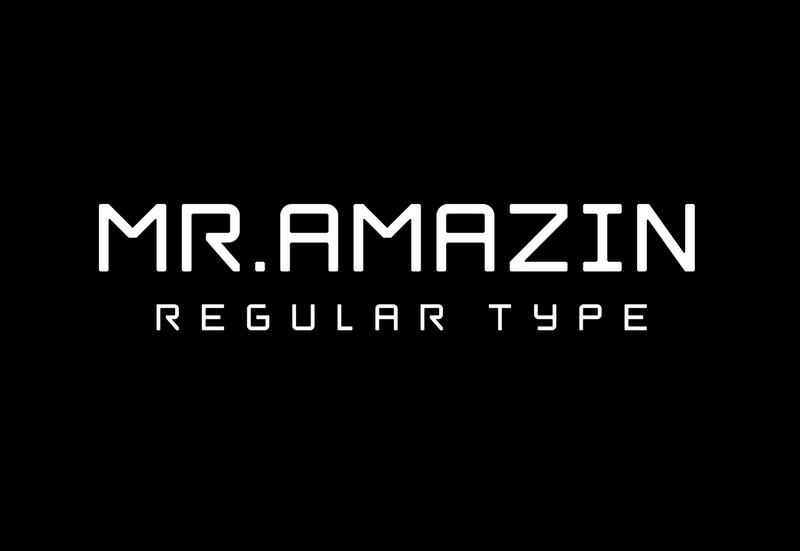
Mr.Amazin Display Font
Say Hello Guy’s . Thank you for looking Mr.Amazin Free Font. This is a condensed display typeface which is based on vintage branding and painted signage. It’s strong, confident and sophisticated; giving it flexibility for a broad range of uses. It includes accents & multilingual characters.
Mr.Amazin Regular Type – is a Geometric Sans Serif font, Latin & Cyrilic, free for personal & commercial use. It’s also perfect for creating great logos, promotional content and marketing graphics that lift the creative aspects of the design. Please see the examples shown above to get an idea about the capability of this typeface.